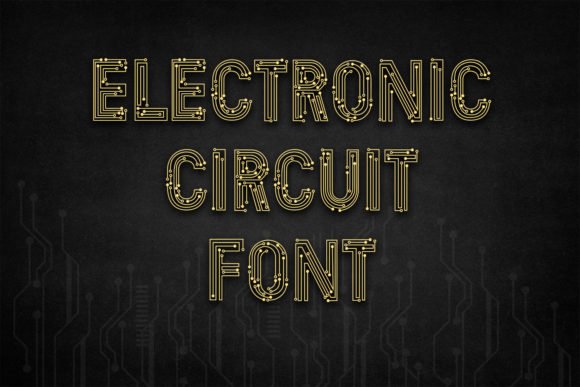
The Spark of Creativity: Unleashing the Power of Electronic Circuit Font
Do you remember that moment when a brilliant idea strikes, and you’re eager to bring it to life? It’s a rush of excitement and energy that drives creatives to push boundaries and innovate. For designers, this spark often starts with the perfect font – one that can elevate their vision and make it stand out. That’s where the Electronic Circuit Font comes in – a bold and authentic display font that celebrates abstract shapes in all their eclectic brilliance.
With Electronic Circuit Font, designers can add a unique touch to their projects, making them more visually appealing and attention-grabbing. Its eclectic design makes it perfect for a variety of applications, from digital interfaces to packaging and branding. By incorporating this font into their creative ideas, designers can breathe new life into their work and make it truly unforgettable.
Electronic Circuit Font Key Features
- Unique Symbol Set: The Electronic Circuit Font includes a comprehensive set of symbols and icons specifically designed for electronic circuit diagrams, making it an ideal choice for engineers, designers, and technicians.
- Large Character Set: With over 1,000 unique symbols and icons, the Electronic Circuit Font provides an extensive library of elements to create detailed and accurate circuit diagrams.
- Customizable and Scalable: The font’s vector-based design allows for easy resizing and customization, making it suitable for various applications, from small-scale diagrams to large-scale engineering projects.
Electronic Circuit Font Review
I recently had the chance to work with the Electronic Circuit Font, and I must say it’s a unique and interesting addition to any project.
- ✨ The font’s futuristic and edgy vibe is perfect for projects related to technology, robotics, or science.
- ✨ The high level of detail in the circuit designs adds a level of realism that’s hard to find in other fonts.
- ✨ The font is highly customizable, allowing you to adjust the size, color, and style to fit your specific needs.
- ⚠️ The font can be quite overwhelming if used extensively, as the intricate details can make the text difficult to read.
- ⚠️ Some characters, such as the numbers, may not be as clear or legible as other fonts.
- ⚠️ The font may not be suitable for body text or large blocks of text, as it’s best used for headings, titles, or smaller chunks of text.
Overall, I’d say the Electronic Circuit Font is a great choice for projects that require a high level of technical sophistication and a touch of futurism.
Use the Electronic Circuit Font to create diagrams and illustrations for technical documents, presentations, and websites.
Combine the font with other design elements, such as images and shapes, to create visually appealing and informative designs.
Experiment with different font sizes, colors, and styles to achieve the desired look and feel.
The Electronic Circuit Font is commonly used in:
Technical documentation and manuals.
Presentations and slideshows.
Websites and blogs.
Infographics and data visualizations.
Alternatives to Electronic Circuit Font for Designers
1. Circuit Diagram Font
Circuit Diagram Font is a popular alternative to Electronic Circuit Font, known for its simplicity and ease of use. It’s ideal for creating circuit diagrams and electronic schematics. When to use: Circuit diagrams, electronic schematics, and educational materials. How it compares: Circuit Diagram Font has a more straightforward design, making it easier to read and understand, especially for beginners.